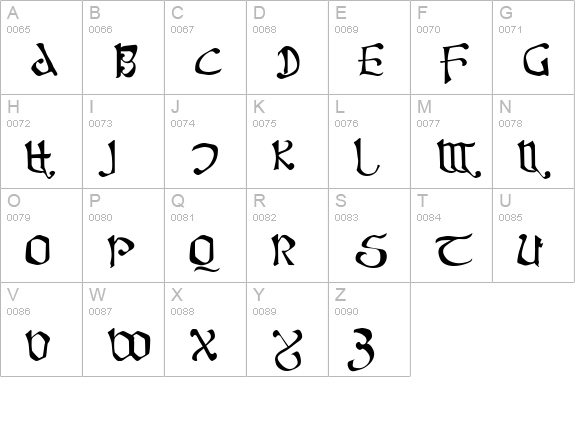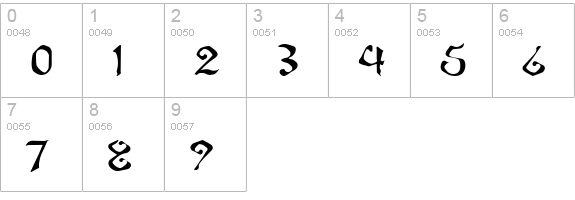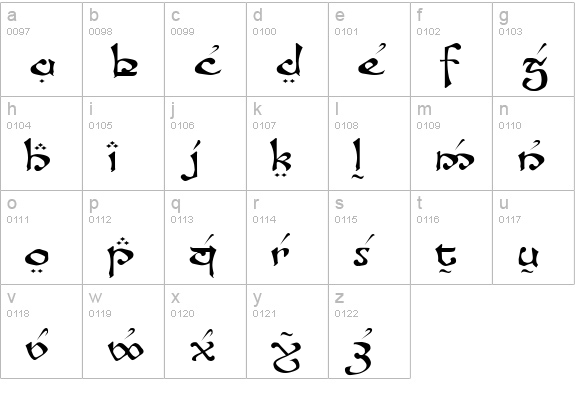
Fanjofey Leoda AH Font Details
Fanjofey Leoda AH font is an elegant and modern typeface that exudes sophistication and charm. With its unique design and stylish curves, this font is perfect for adding a touch of class to any project. Whether you're designing a logo, creating a poster, or crafting a wedding invitation, Fanjofey Leoda AH font will make your text stand out. The best part? Fanjofey Leoda AH font is completely free to download at FontsMarket.com. You can easily access this beautiful font and use it for both personal and commercial projects without any restrictions. Don't miss out on the opportunity to enhance your designs with this stunning typeface. Download Fanjofey Leoda AH font today and elevate your creations to the next level!